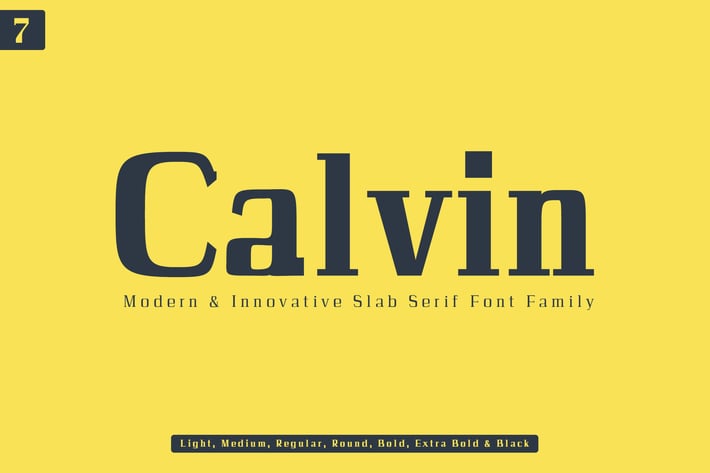
Calvin Slab Serif Font Family
Calvin is a gorgeous and sophisticated bold slab typeface to make your design fresh and innovative. It includes uppercase, lowercase, number, punctuation, symbols, with non-english characters. Calvin makes it perfect for posters, greeting cards, stationery design, magazine layouts, stickers and stencil design, prints, logotypes, branding, name card, stationary, design title, blog header, quotes, typography, headlines, packaging, presentations, titles, magazines, headings, web layouts, advertising, invitations, packaging design, books, and nearly any creative design.
Included Features:
- Font Weight: Regular, Light, Thin, Medium, Round, Bold, Extra Bold and Black
Calvin Font Features:
- Uppercase Multilingual Letters
- Lowercase Multilingual Letters
- Numbers and Punctuation
- Non English Characters ( Latin Supplement + Latin Extended A)